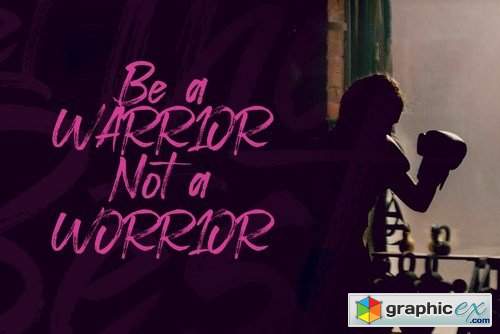
Let The Best
The Let The Best is a fresh script font, elegant and modern feel character set. The Let The Best font includes a full set capital and lowercase letters, as well as multi-lingual support, swashes, numerals, & punctuation.